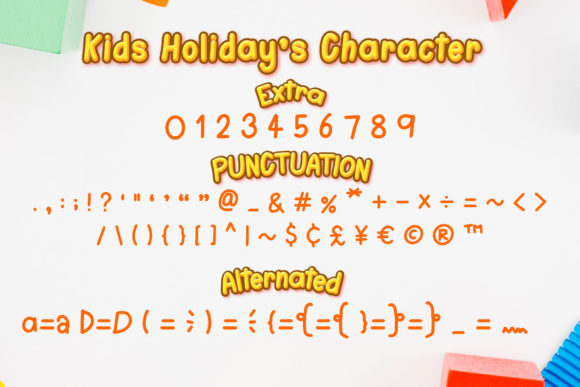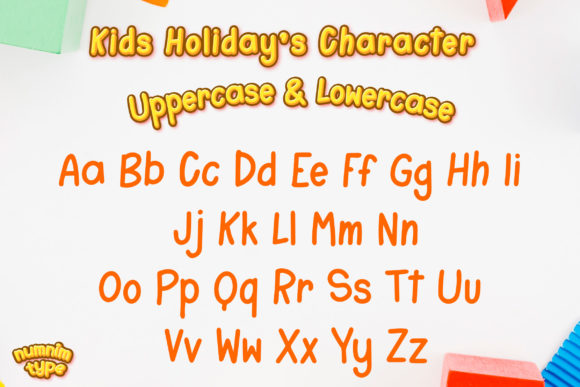
Kids Holiday Font
db-ku.com - Script & Handwritten -- Kids Holiday embodies fun and joyfulness. Get creative with its childlike playfulness, and use it to brighten up any kids and school project!